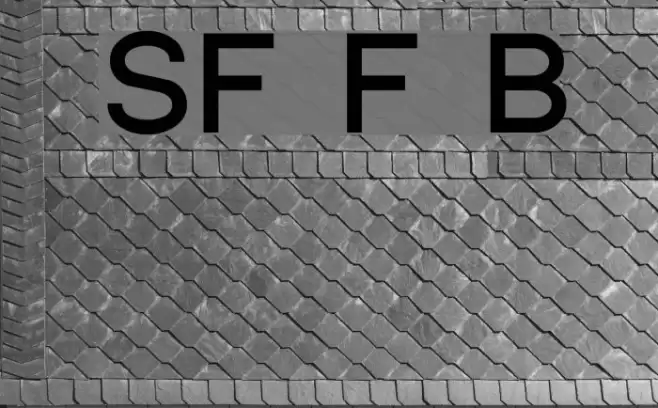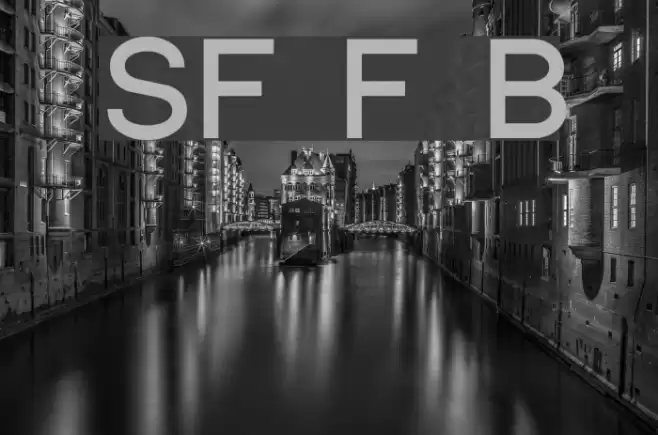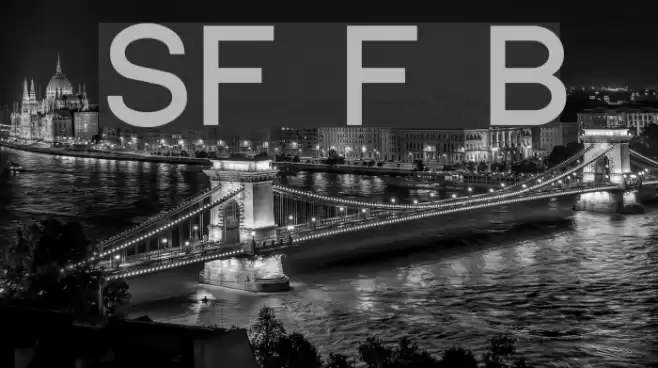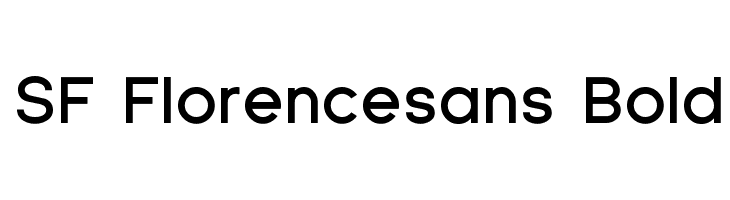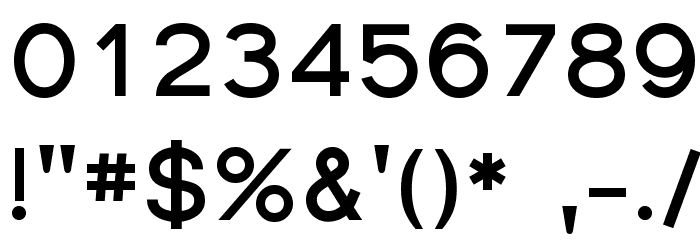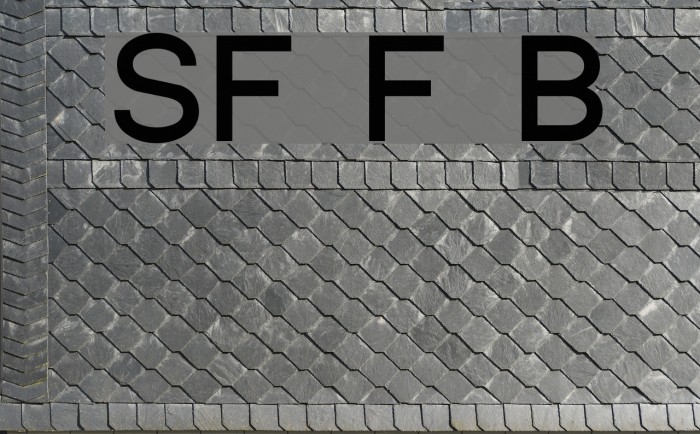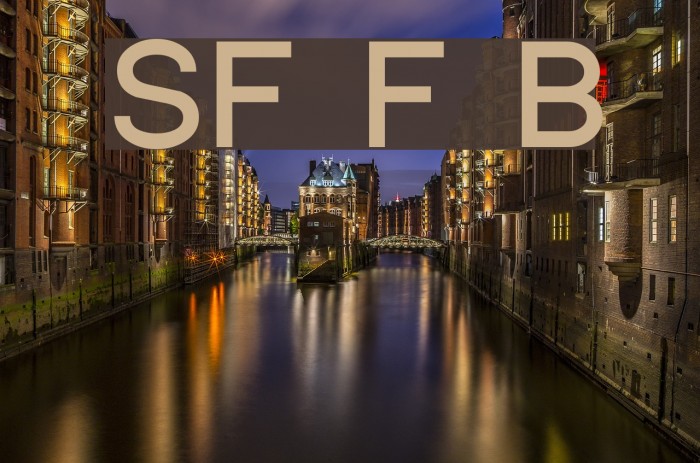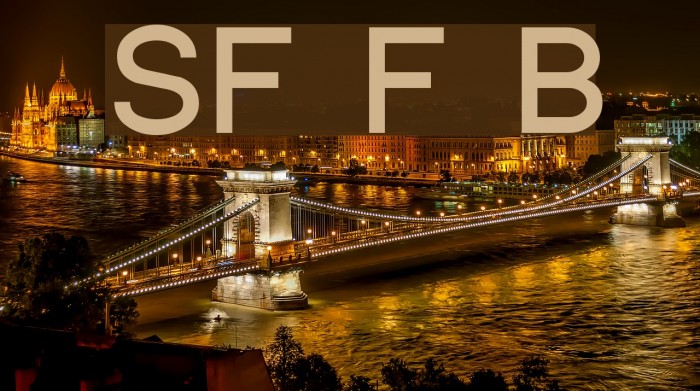
SF Florencesans Bold Font
SF Florencesans Bold Description
This typeface presents a clean and modern aesthetic with a geometric sans-serif style. The characters are well-proportioned, featuring uniform stroke widths that contribute to its bold appearance. The uppercase letters are slightly taller than the lowercase, providing a balanced and harmonious look. The numbers are clear and easily distinguishable, making them suitable for a variety of applications. Special characters are designed with the same attention to detail, ensuring consistency across the entire set. This font's simplicity and clarity make it versatile for both digital and print media.
A bold, geometric sans-serif font with a clean and modern design from Uncategorized fonts.
- Proposed Projects: Ideal for branding, advertising, web design, and editorial projects where clarity and modernity are desired.
- Use Case: Headlines, Logos, Branding